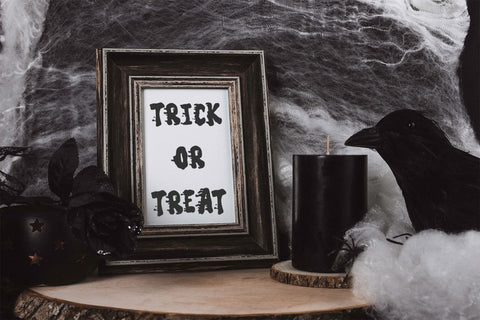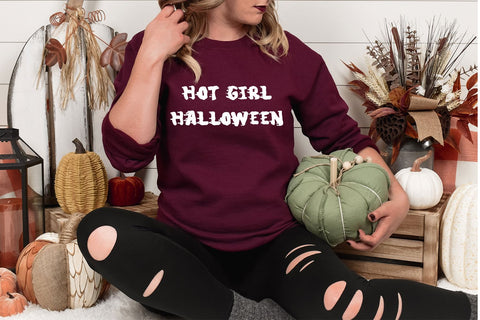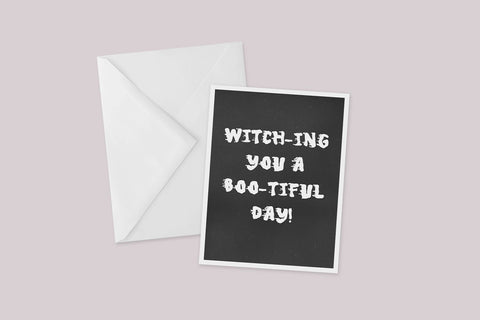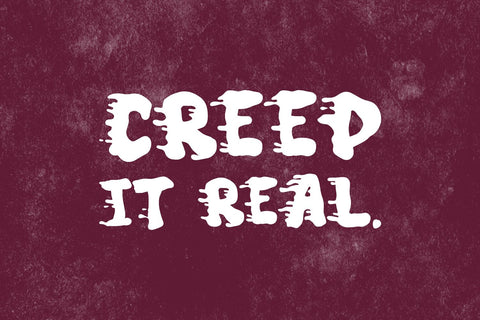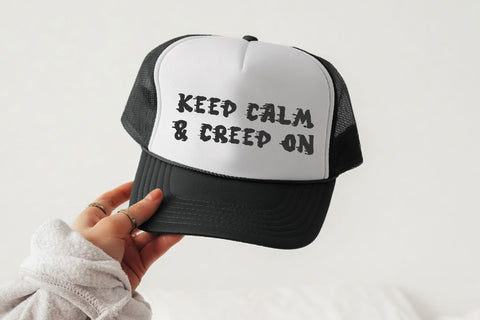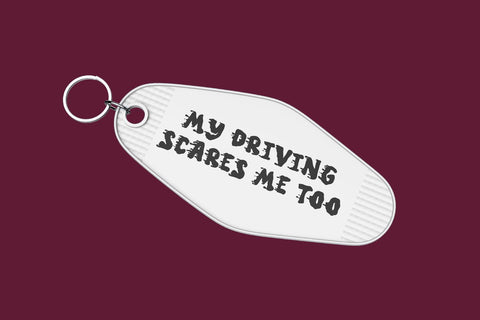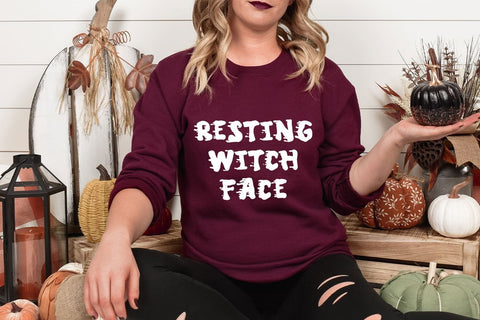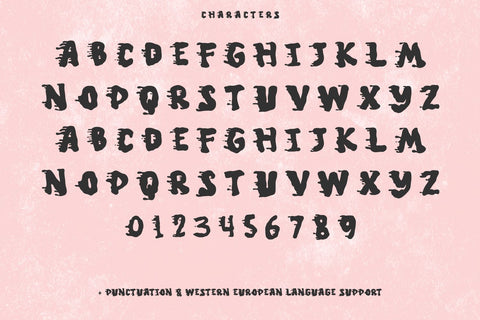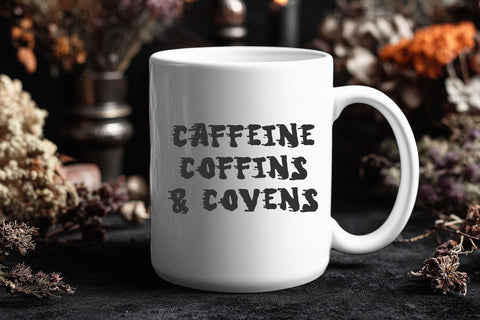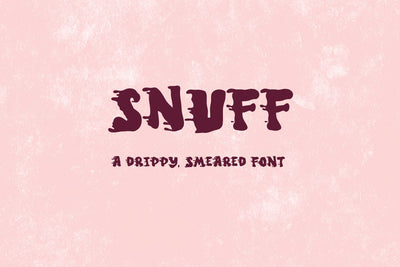
Snuff Display Font
Snuff is a drippy, smeared font that can be used for a variety of applications: blood, slime, guts, or maybe just regular ol’ melty stuff. It’s a bit more on the playful, upbeat side, despite the darker name. Snuff would be a good fit for horror-themed items, shirts, stickers, hats, and more. Pair with friendlier graphics like cute pumpkins or cartoonish vampires to create an extra fun but creepy image.
- full upper + lowercase characters (all caps programmed into lowercase slots)
- numbers + punctuation